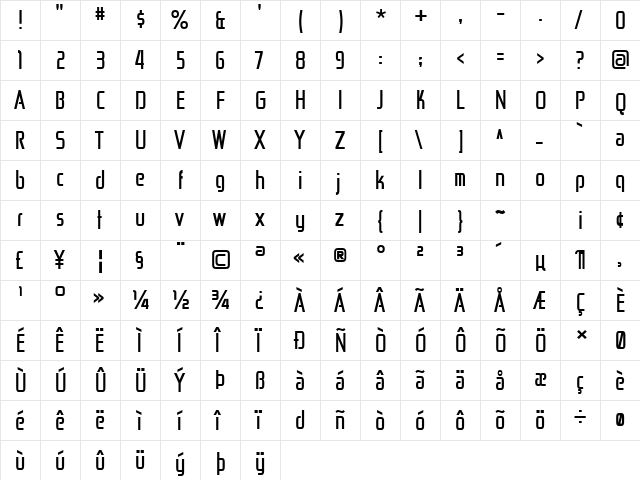
Zekton Cd Bold
Design Context for Zekton Cd Typeface
Zekton Cd is a composed and adaptable typeface that performs quietly and consistently across a wide range of design contexts. The heavy weight commands attention and anchors typographic hierarchies.